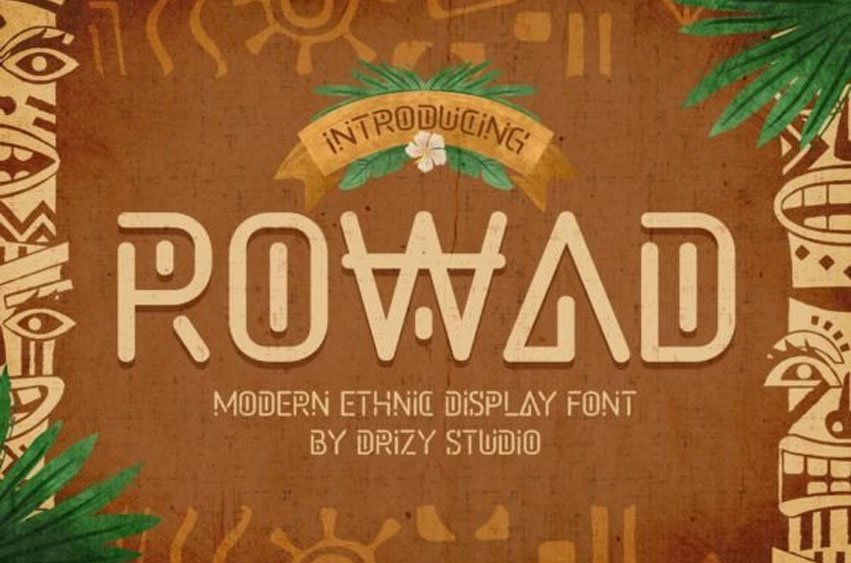
Rowad Font is a modern ethnic display font, offering all the basic styles you will need for a successful project.
It is perfect for your upcoming projects.
Rowad Font is a modern ethnic display font, offering all the basic styles you will need for a successful project.
It is perfect for your upcoming projects.